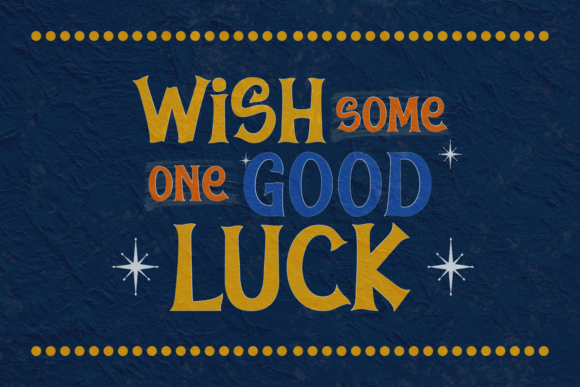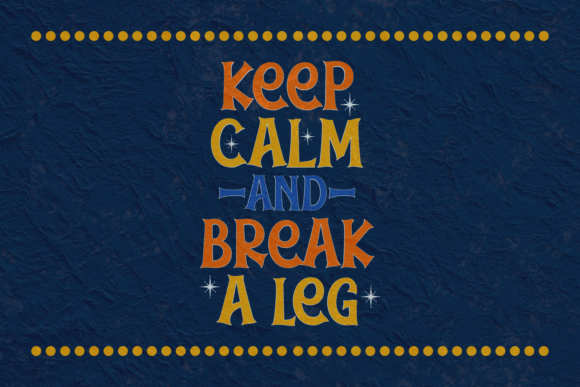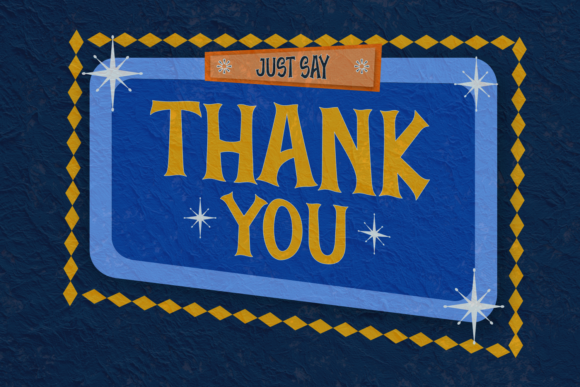
Introduction to Break a Leg Font
Break a Leg is a whimsical and charming handwritten font with a vintage feel.
Get inspired by its bold charm .
Key Features of Break a Leg Font